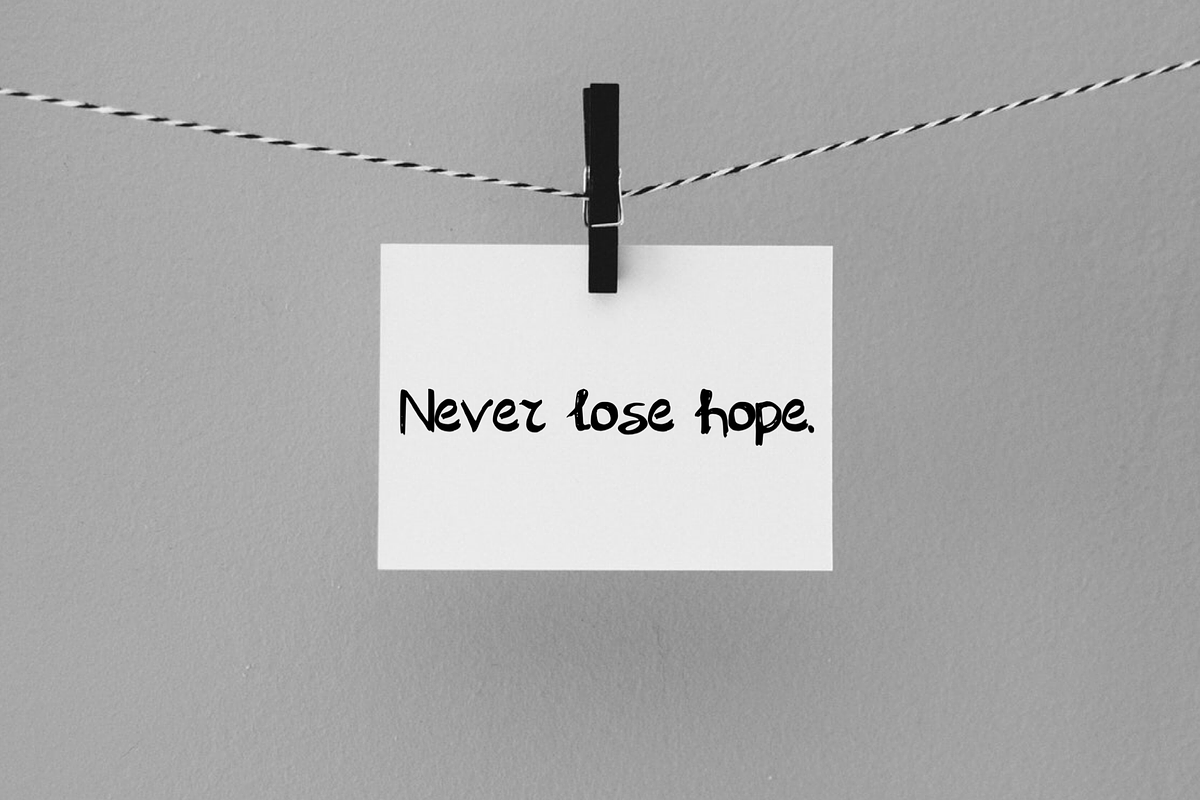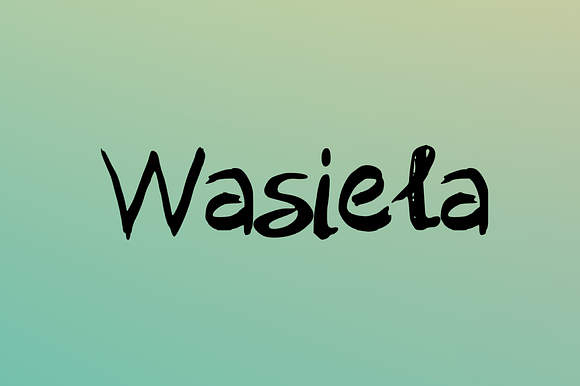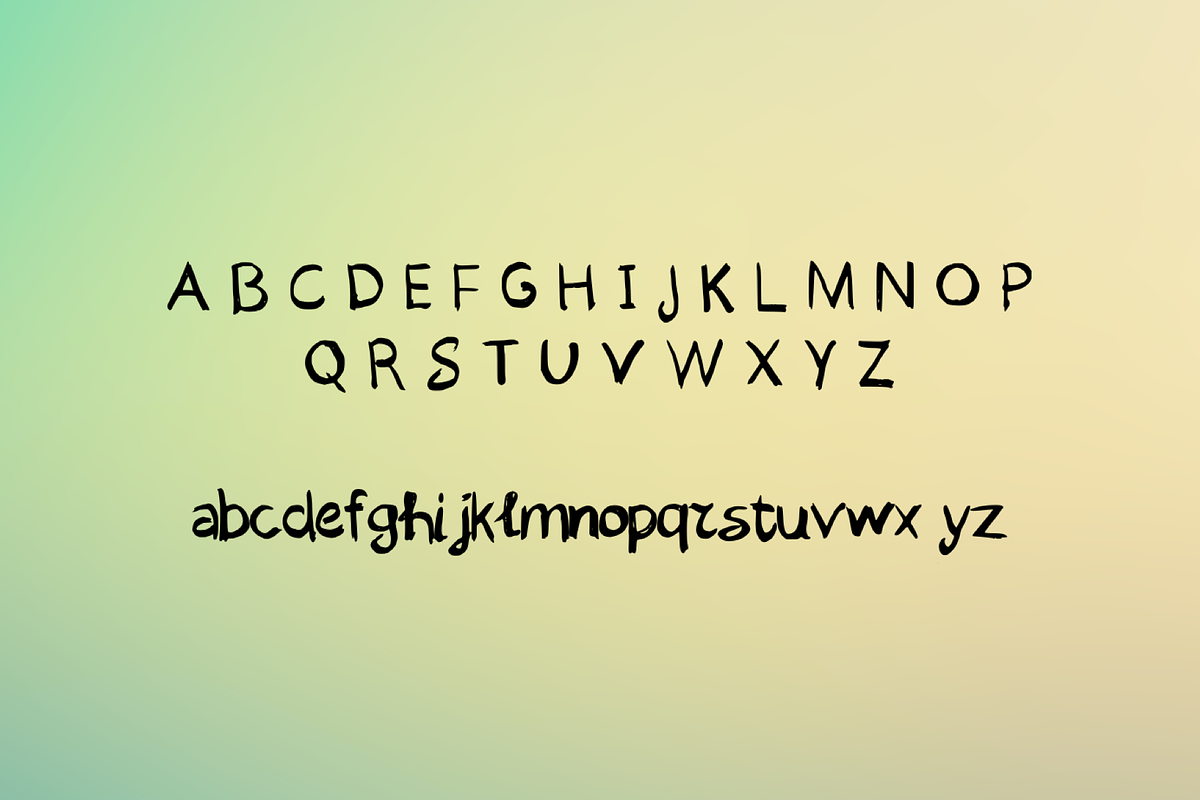
Wasiela Handwritten Script Font
Wasiela is a handwritten font. Ideal for logos, handwritten quotes, product packaging, header, poster, merchandise, social media and greeting cards
Why Wasiela Handwritten Script Font is worth a look
Wasiela Handwritten Script Font by Mila Visuals fits naturally into Branding, posters, packaging, typography.